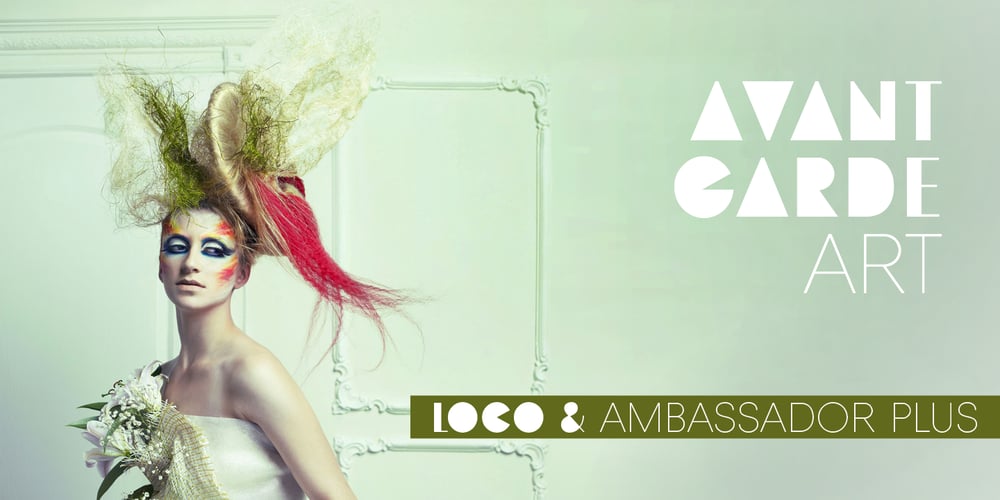
Loco
Loco font
Loco Font Family was designed by Juraj Chrastina and published by Juraj Chrastina. Loco contains 1 styles and family package options. Loco is an impacting display typeface playing with simple geometric forms perfect for posters, flyers, magazines and everything that needs to look bold, noticeable and up-to-date. Loco was created to perfectly match Ambassador Plus Sans Light. Their combination offers a flexible tool for your creative designs.